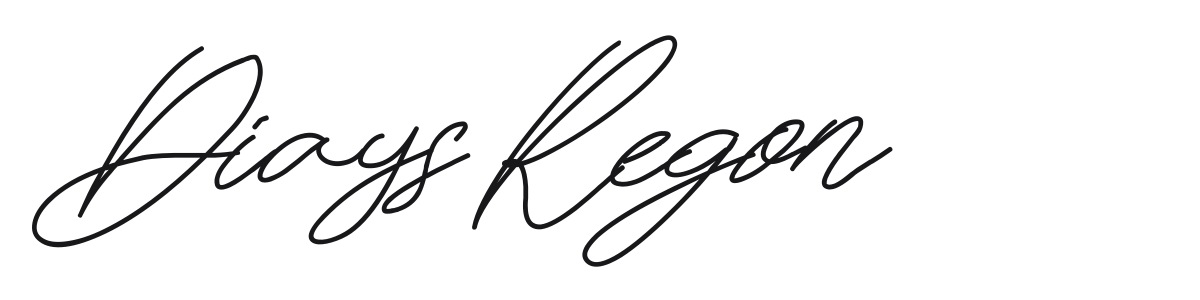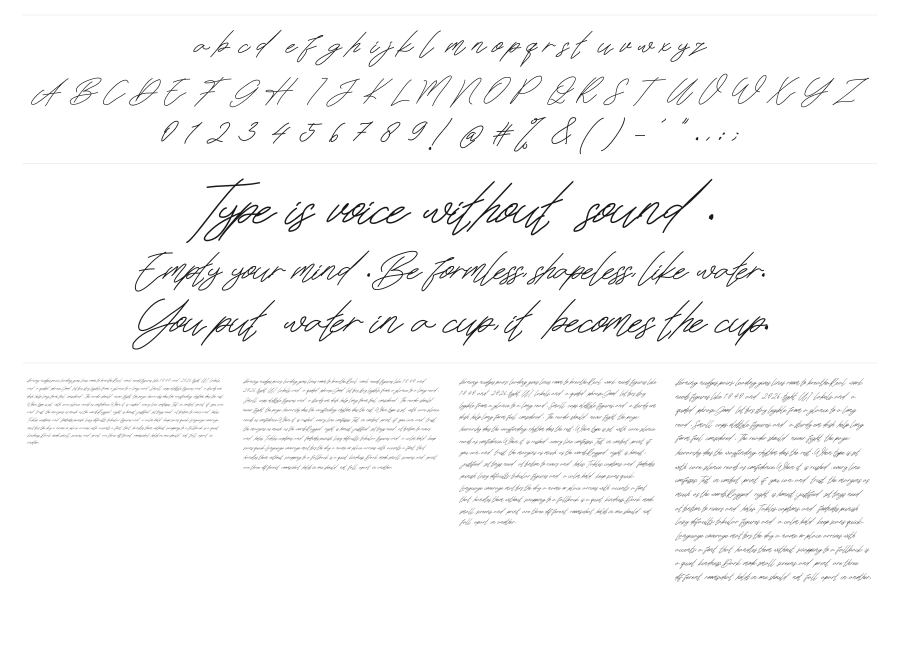
Diays Regon
Diays Regon is a thin signature-style script with sweeping, connected strokes that flow like ink from a fine pen. Long looping descenders and interlocking ascenders give it a natural spontaneity that works well at large sizes in branding and editorial contexts. The delicate weight keeps it feeling airy and refined rather than heavy.